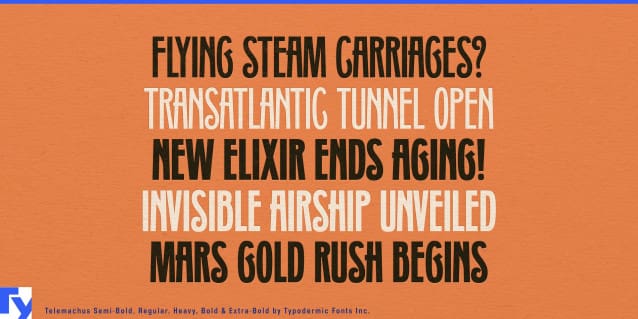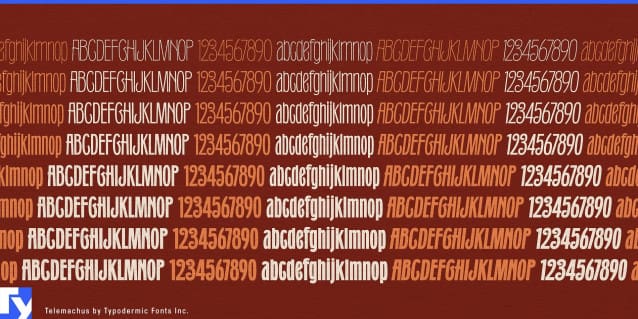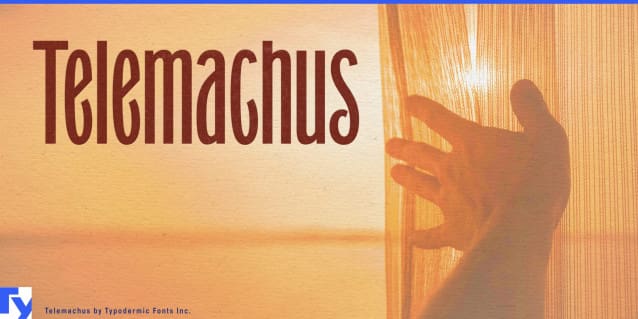
Telemachus Font Family, the typeface from Typodermic Fonts that echoes the understated eloquence of a bygone era. This unique typeface harmoniously blends the past with the present, capturing the spirit of a late 19th century metal typeface while reimagining it for the modern designer.
Anchored in the richness of nostalgia, Telemachus distills the essence of Grant No. 2’s distinctive serifs and sharp tapered curls into a cleaner, sans-serif silhouette. It refrains from leaning too contemporary, instead, it draws from the era’s narrow gothic aesthetic, mirroring styles such as Binner Gothic.
This narrow sans-serif display typeface, offered in eight carefully curated weights, from thin to heavy, each with its accompanying italics, brings forth a design sensibility that feels both timeless and fresh.
With Telemachus Font, your designs can strike an intimate chord, resonating with authenticity and simplicity. It’s a subtle nod to the past, a bridge to the present, and a quiet declaration of your design narrative.